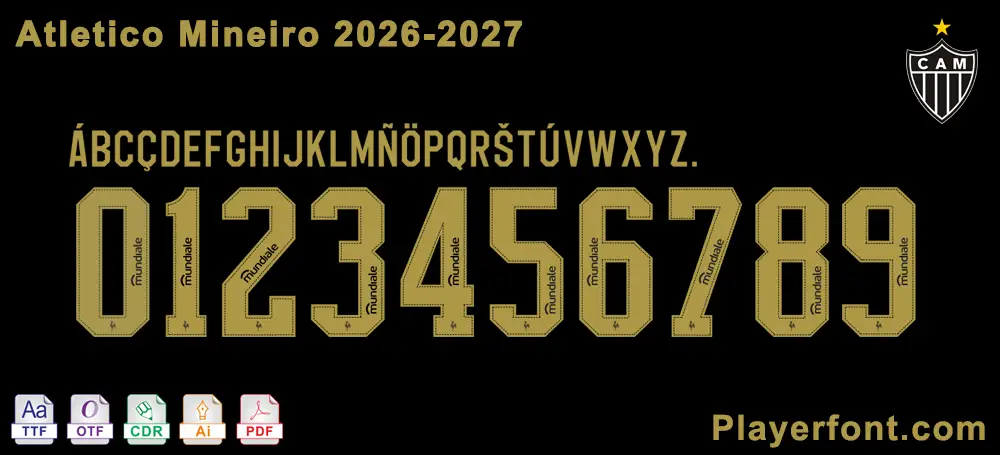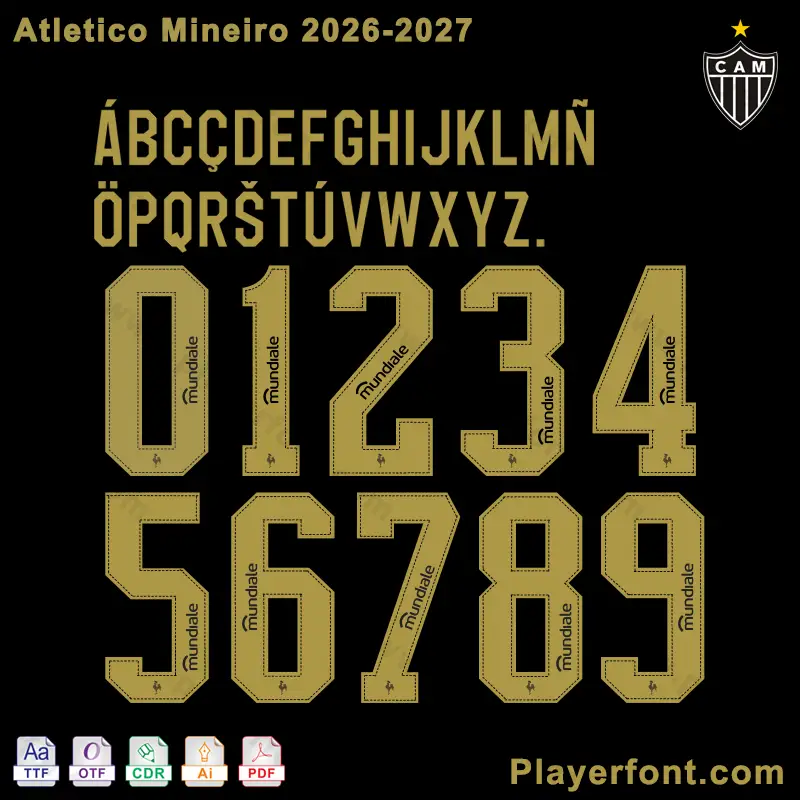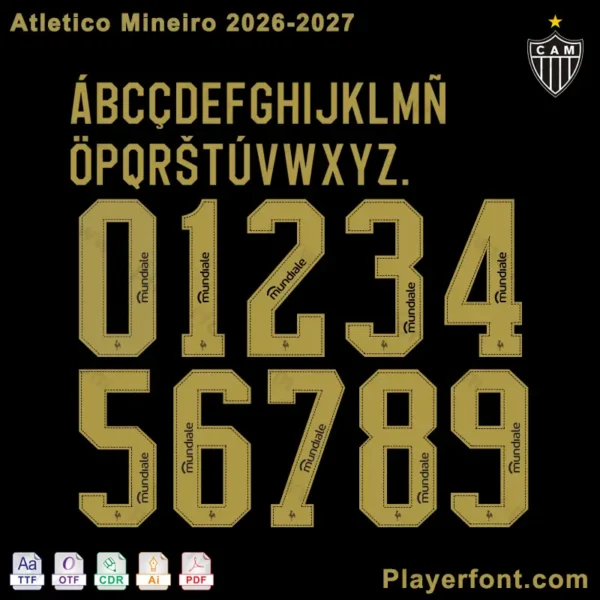
Elevate your sports design projects with the authentic Atletico Mineiro 2026-2027 font. This comprehensive vector pack provides everything you need to recreate the look of the Brazilian club’s latest kits. Whether you are customizing jerseys, creating social media graphics, or working on sports marketing materials, these files ensure high-resolution precision.
Full Alphabet: Includes all uppercase letters and special characters.
Complete Number Set: High-detail numbers (0-9) as seen on the 2026-2027 match kits.
Our files are meticulously recreated to match the exact proportions and spacing of the official Atletico Mineiro 2026-27 kit. This download is an essential tool for jersey collectors, kit makers, and graphic artists looking for 100% accuracy.